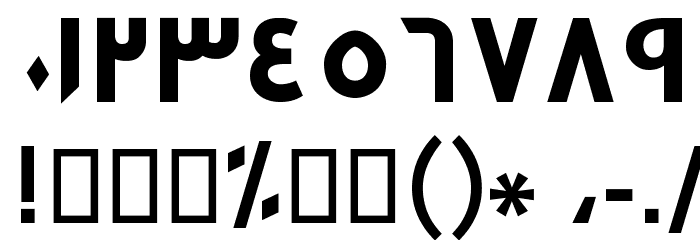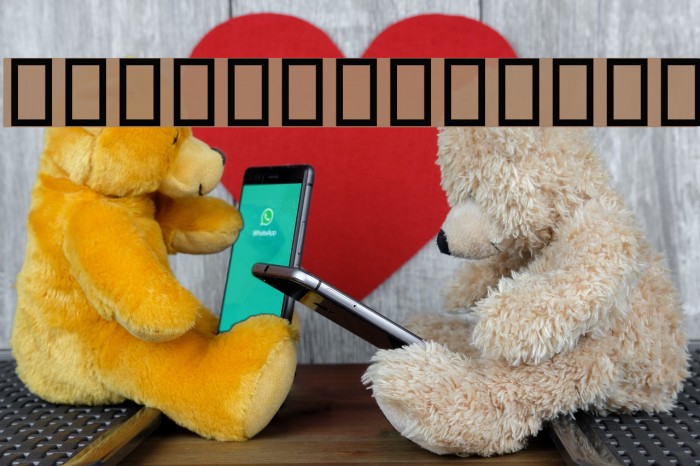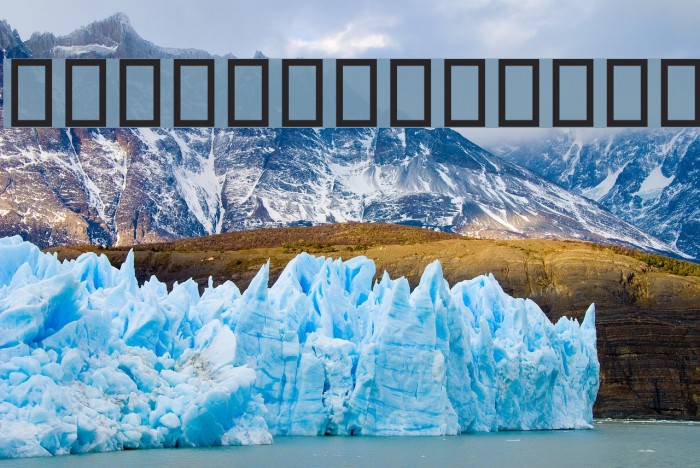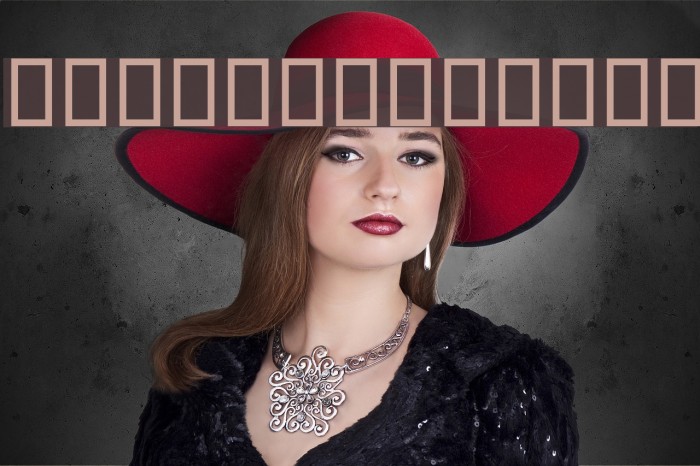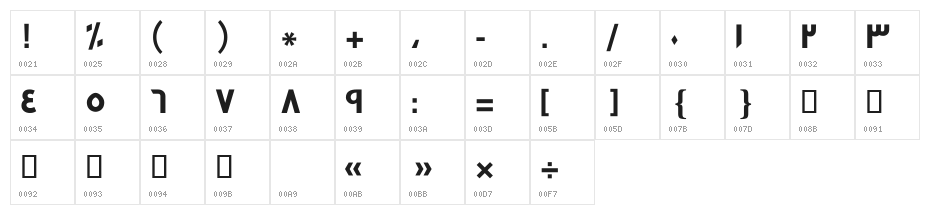
Zohal Font
This font features a bold and modern design with a strong geometric influence. The characters are constructed with clean, straight lines and sharp angles, giving it a futuristic and tech-inspired appearance. The uppercase letters are uniform in height, while the lowercase letters maintain a consistent style, enhancing readability. The numbers are bold and distinct, matching the overall aesthetic of the font. Special characters are designed with the same attention to detail, ensuring they integrate seamlessly with the rest of the typeface. This font is ideal for projects that require a contemporary and assertive look.
A bold, geometric font with a modern, tech-inspired design.
- Proposed Projects: Ideal for technology branding, modern advertising, digital interfaces, and futuristic design projects.
- Use Case: Headlines, Logos, Digital interfaces